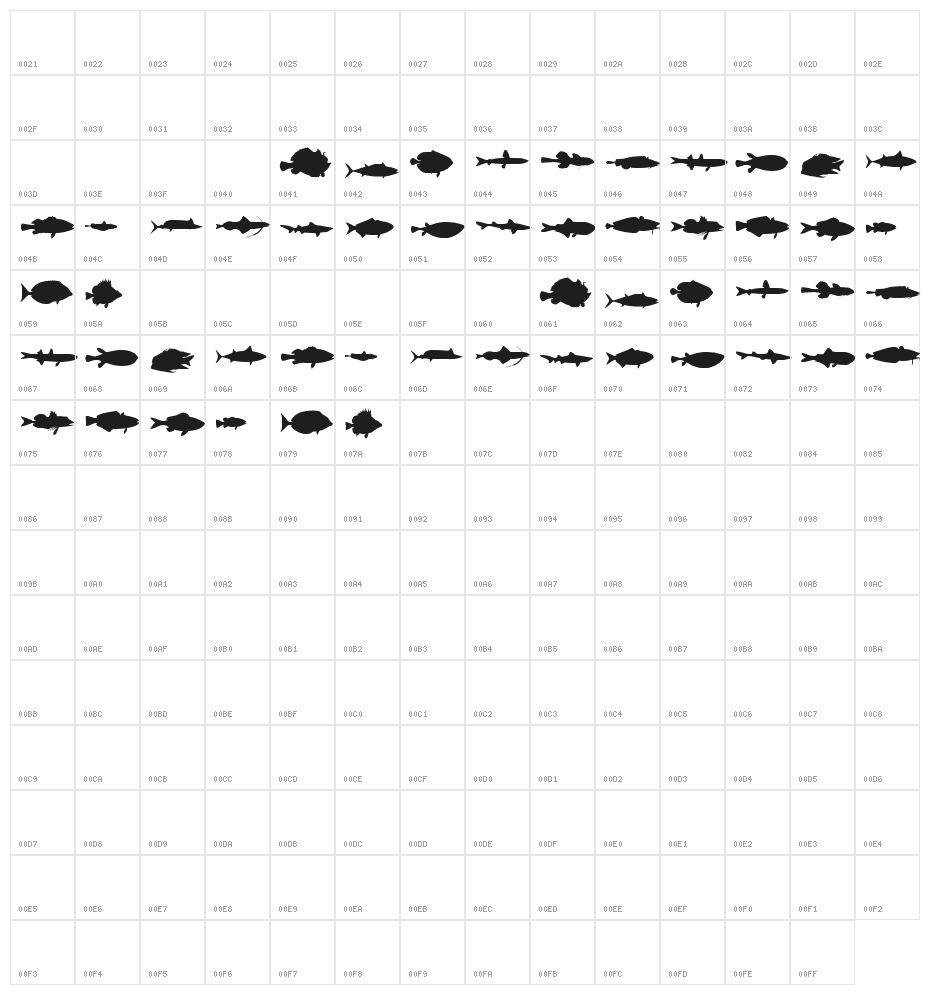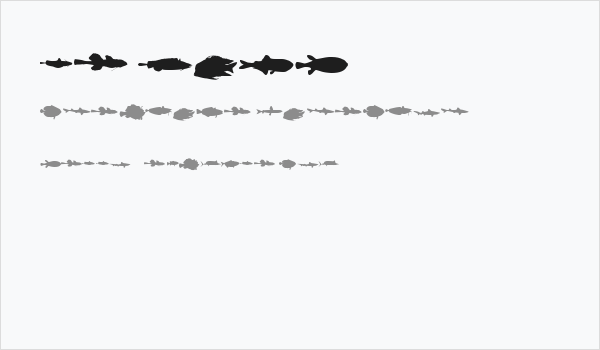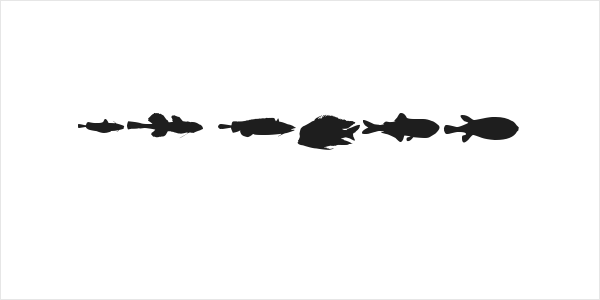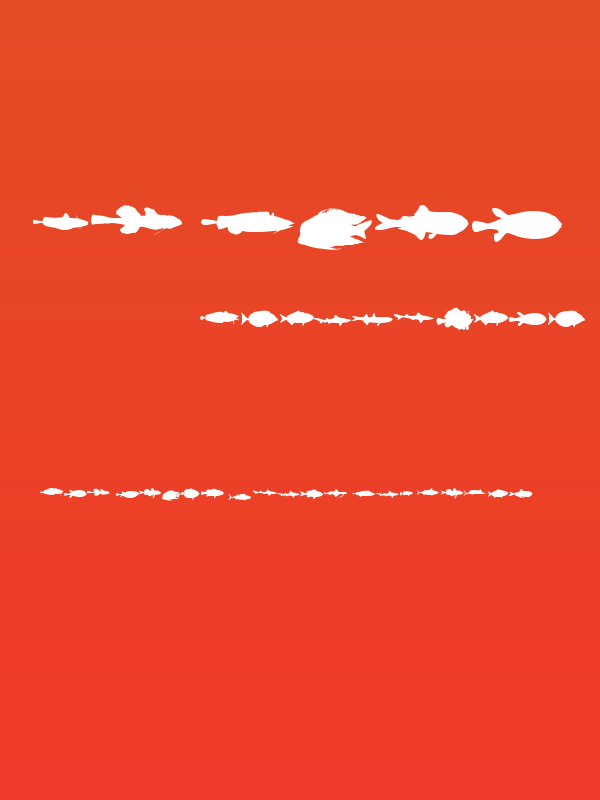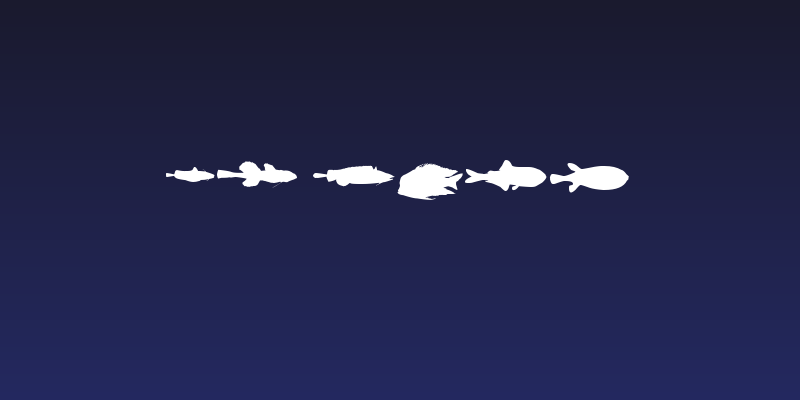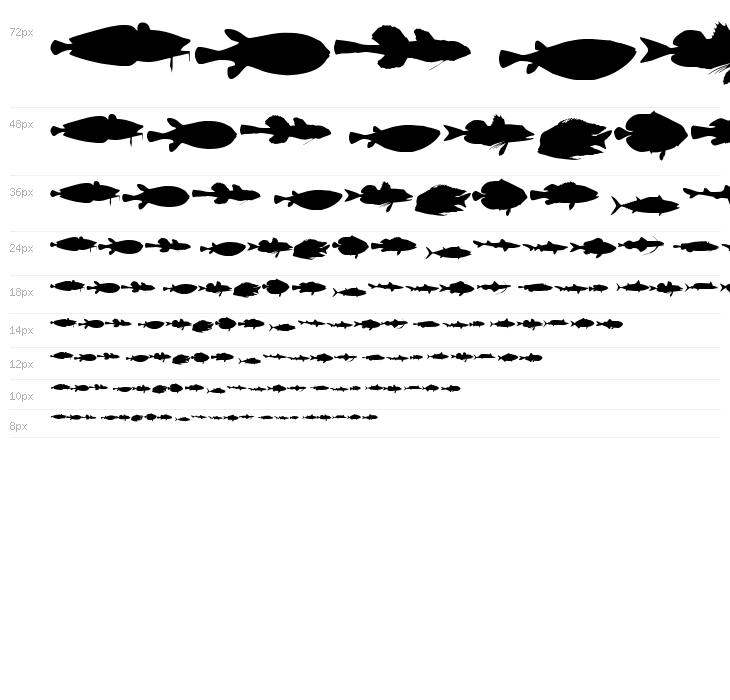
LE FISH Font
LE FISH Description
This font is a creative and playful design that uses silhouettes of various fish to represent characters. Each letter and number is uniquely crafted to resemble a different type of fish, creating a whimsical and aquatic theme. The design is highly decorative, making it ideal for projects that require a fun and engaging visual element. The characters are evenly spaced, with a consistent size and shape that maintains readability while emphasizing the aquatic theme. This font is perfect for projects related to marine life, aquariums, or any creative endeavor that seeks to incorporate a playful oceanic touch.
| Use Case | Logos, Posters, Creative Displays |
| Proposed Projects | Ideal for children's books, aquarium signage, marine-themed event posters, and playful branding. |